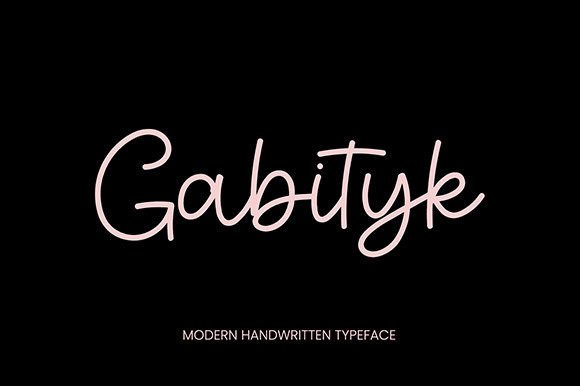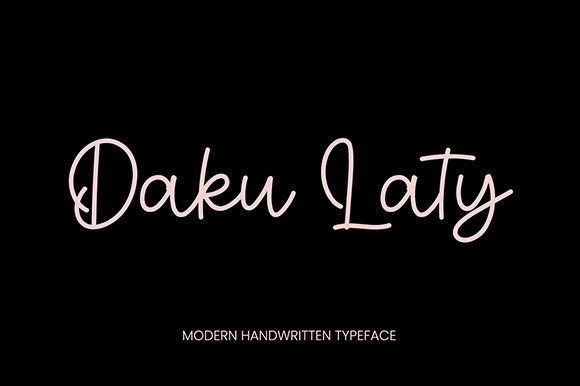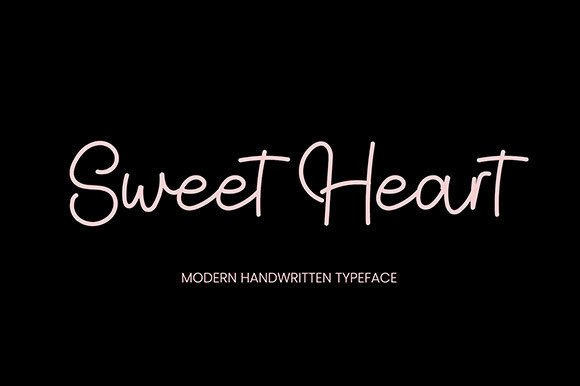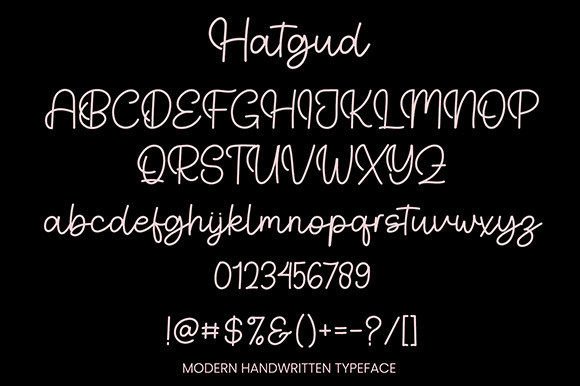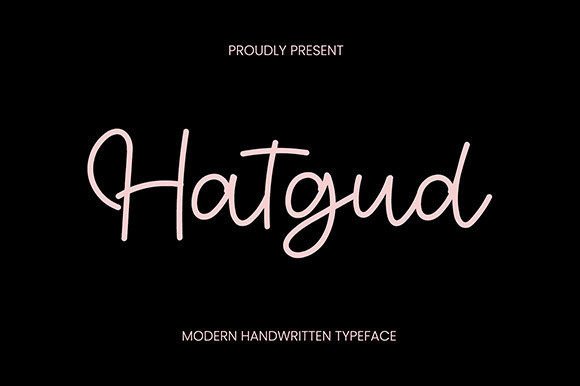
Introducing Hatgud Font: Elevate Your Designs with Elegance
Are you a designer or crafter looking for a font that exudes elegance and sophistication? Look no further than Hatgud Font, a beautiful script font that is perfect for a wide range of projects. From quotes and logos to blog headers and posters, Hatgud Font is the ideal choice for anyone seeking to add a touch of refinement to their designs.
What is Hatgud Font?
Hatgud Font is an elegant script font that is designed to be versatile and easy to use. Its flowing lines and cursive strokes make it perfect for creating beautiful and eye-catching text-based designs. Whether you’re working on a logo, a poster, or a blog header, Hatgud Font is sure to impress.
What Can I Use Hatgud Font For?
The possibilities are endless when it comes to using Hatgud Font. Here are some ideas to get you started:
- Quotes: Use Hatgud Font to create stunning quote graphics that are perfect for social media, blogs, or even printing and framing.
- Logos: Create a professional and elegant logo for your business or brand with Hatgud Font.
- Blog Headers: Add a touch of sophistication to your blog with Hatgud Font, perfect for headers, titles, and more.
- Posters: Design eye-catching posters for events, promotions, or advertising with Hatgud Font.
- Ribbons: Create beautiful ribbon graphics for parties, weddings, or other special occasions.
- Fashion and Clothing: Use Hatgud Font to create stunning labels, tags, or graphics for your fashion or clothing brand.
- Letters and Invitations: Add a touch of elegance to your letters and invitations with Hatgud Font, perfect for weddings, birthdays, or other special occasions.
- Stationery: Create beautiful stationery, including notecards, greeting cards, and more, with Hatgud Font.
Why Choose Hatgud Font?
So why choose Hatgud Font over other fonts? Here are just a few reasons:
- Elegant and Sophisticated: Hatgud Font is designed to be elegant and sophisticated, making it perfect for designs that require a touch of refinement.
- Versatile: Hatgud Font can be used for a wide range of projects, from logos and posters to blog headers and stationery.
Tips for Using Hatgud Font
Here are a few tips for using Hatgud Font to get the most out of your designs:
- Experiment with Colors: Hatgud Font looks great in a variety of colors, so don’t be afraid to experiment and find the perfect color for your design.
- Play with Sizes: Hatgud Font can be used at a variety of sizes, from small and delicate to large and bold.
- Combine with Other Fonts: Hatgud Font pairs well with other fonts, so feel free to experiment with combining it with other fonts to create a unique look.
In conclusion, Hatgud Font is a beautiful and elegant script font that is perfect for designers and crafters looking to add a touch of sophistication to their designs. With its versatility, ease of use, and elegant design, Hatgud Font is sure to become a favorite in your font collection. So why wait? Download Hatgud Font today and start creating stunning designs that are sure to impress!